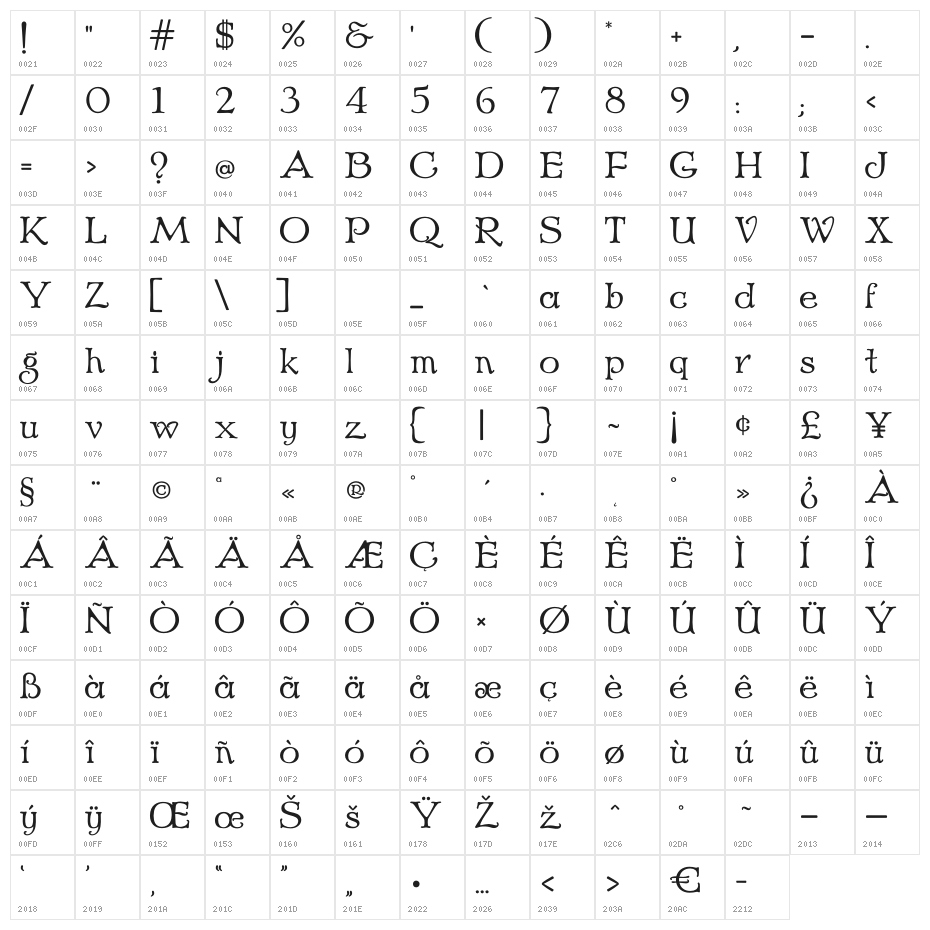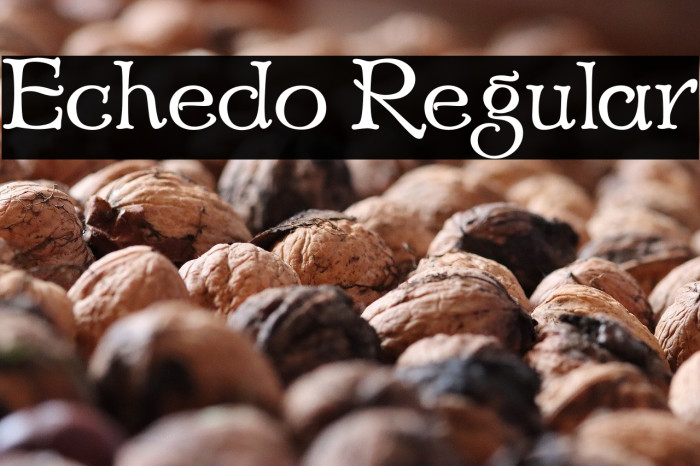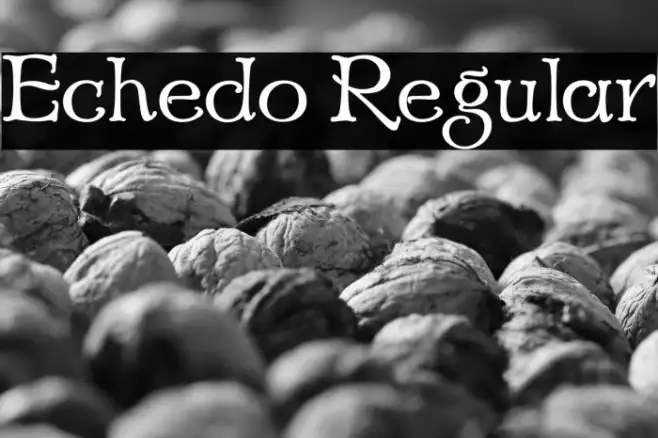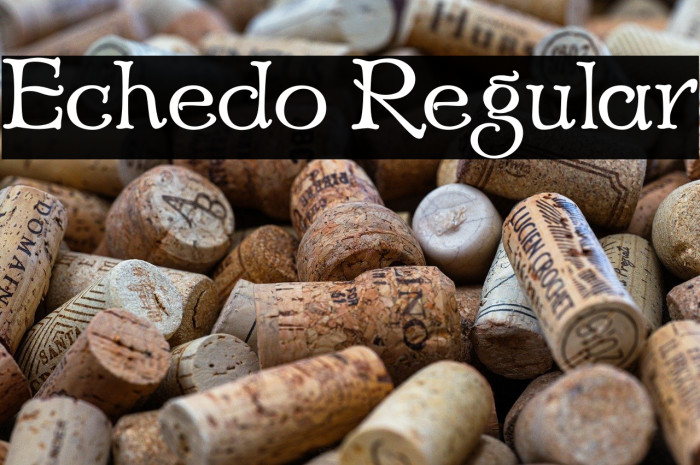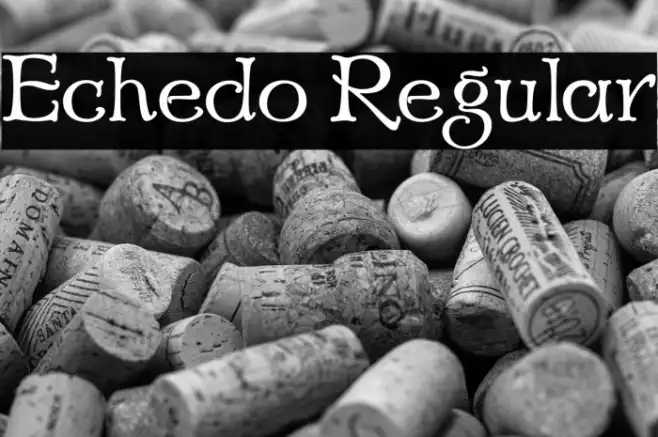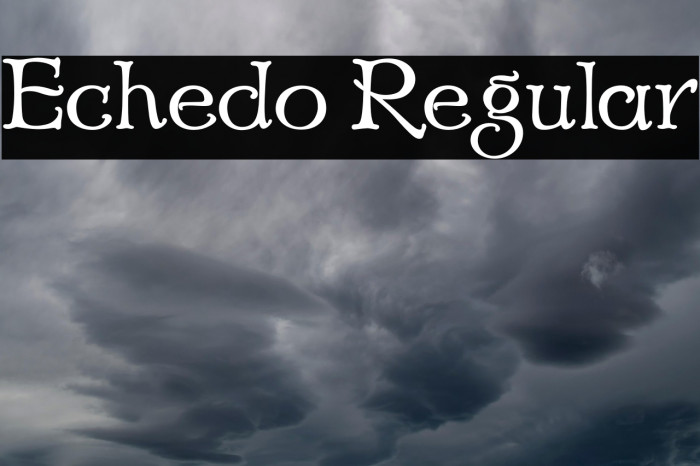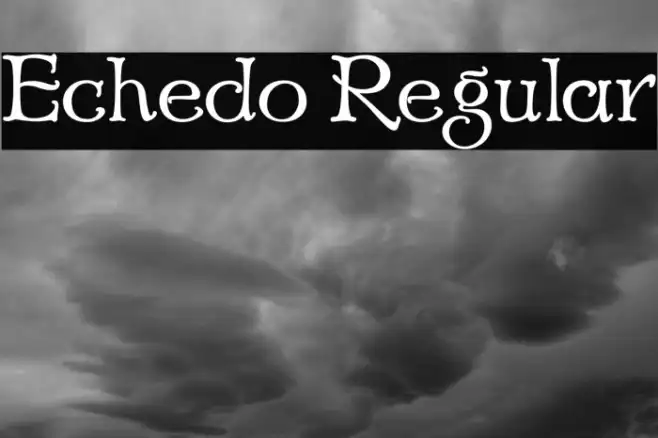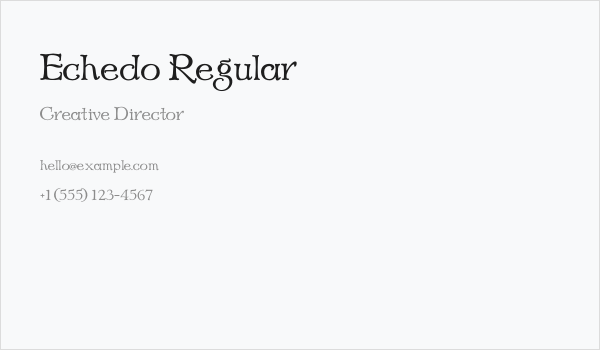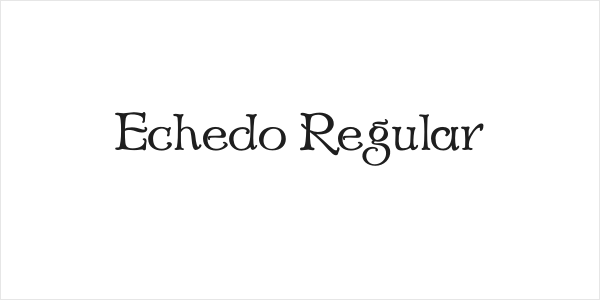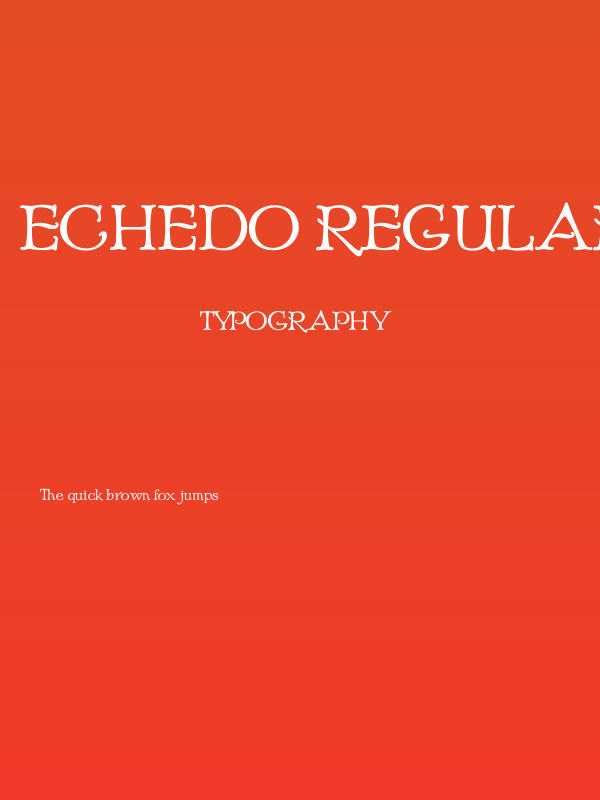
Echedo Regular Font
Echedo Regular Description
This font features a unique and artistic style with a hand-drawn appearance. The characters exhibit a playful yet sophisticated design, with slightly irregular strokes that add a touch of whimsy. The uppercase letters are bold and prominent, while the lowercase letters maintain a consistent flow, enhancing readability. The numerals and special characters are crafted with the same attention to detail, ensuring a cohesive look across all text. This font is ideal for projects that require a creative and distinctive touch, such as invitations, posters, or branding materials.
| Use Case | Headlines, Logos, Artistic designs |
| Proposed Projects | Ideal for creative projects like invitations, posters, branding, and artistic designs. |